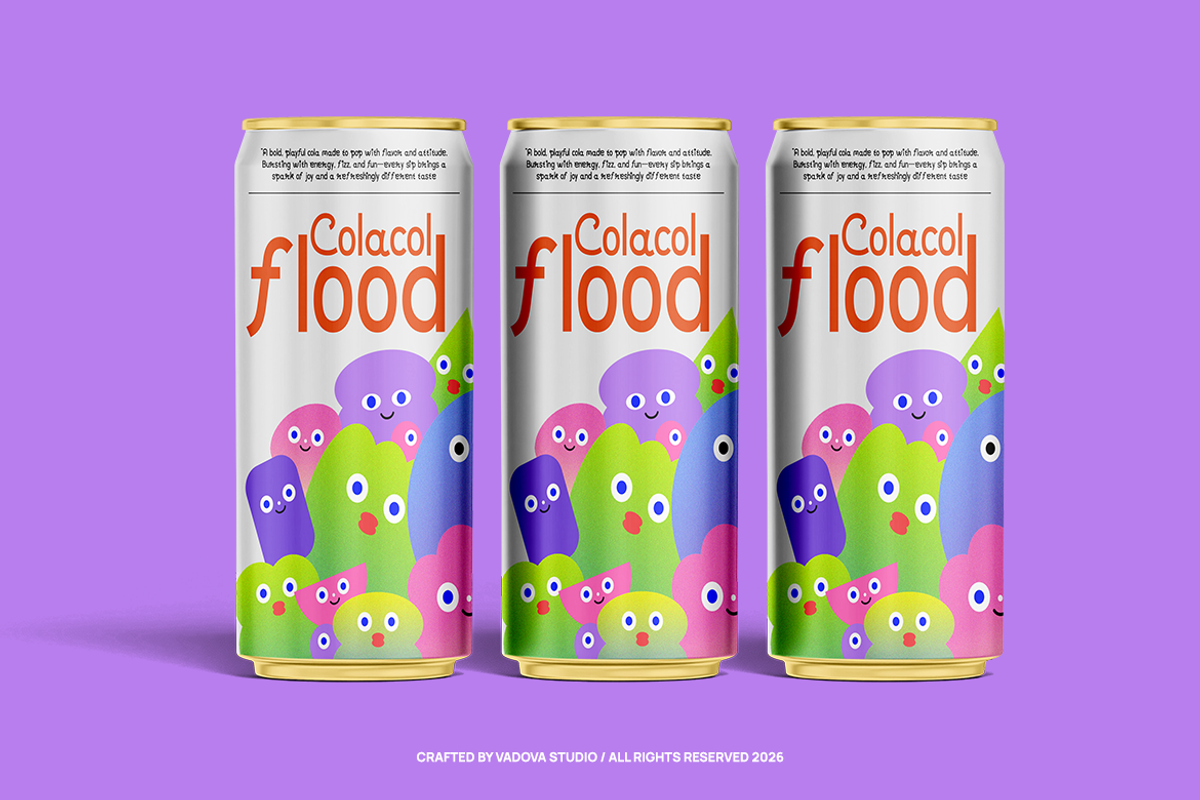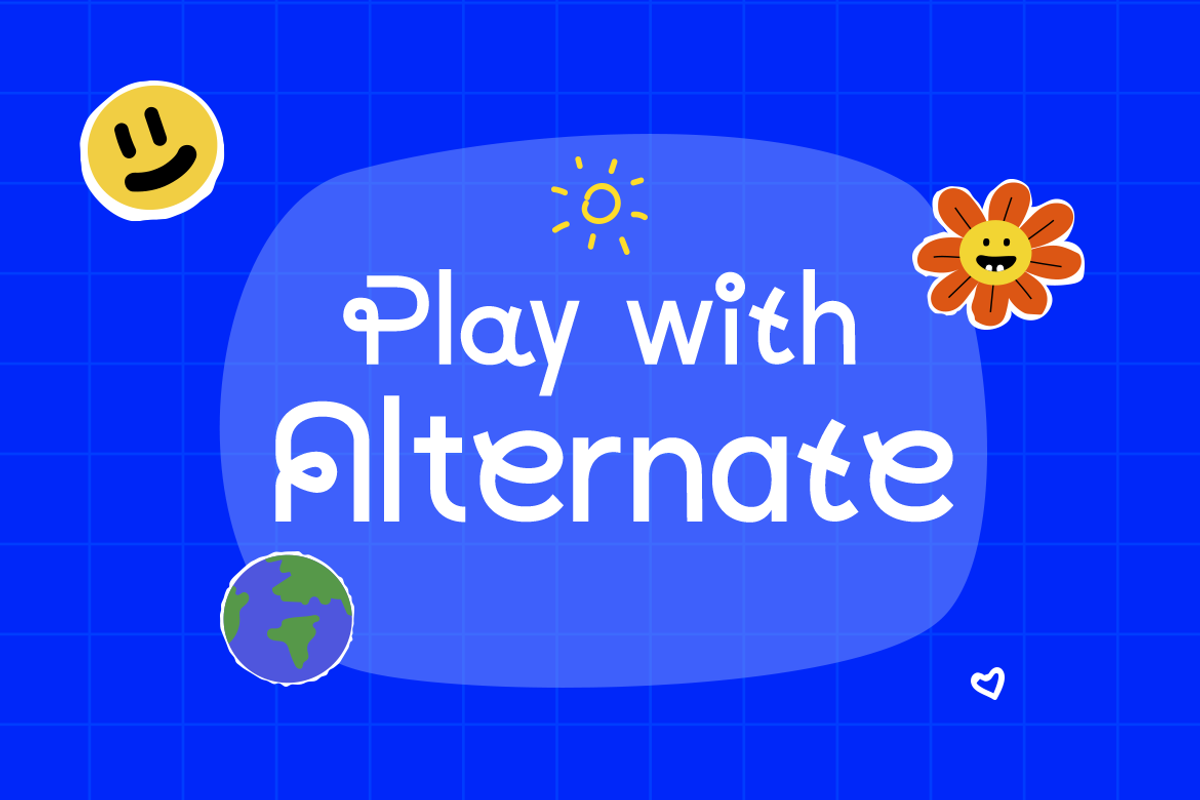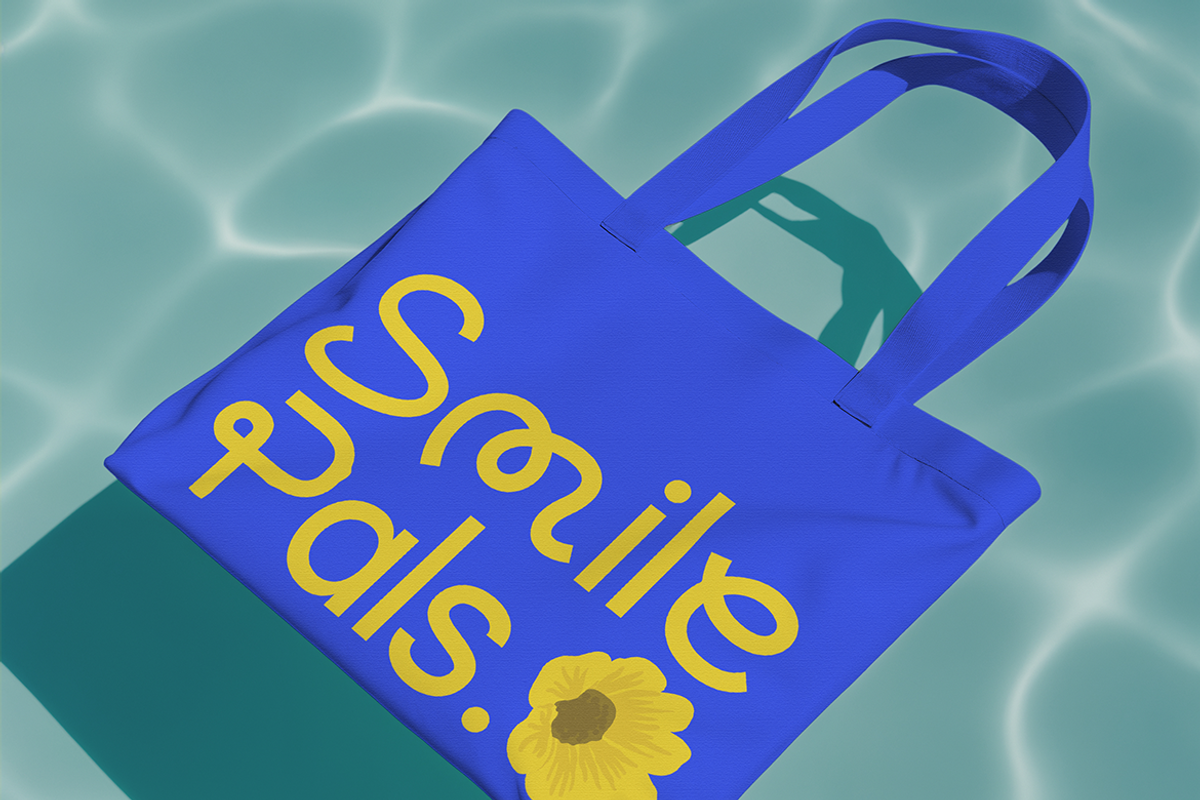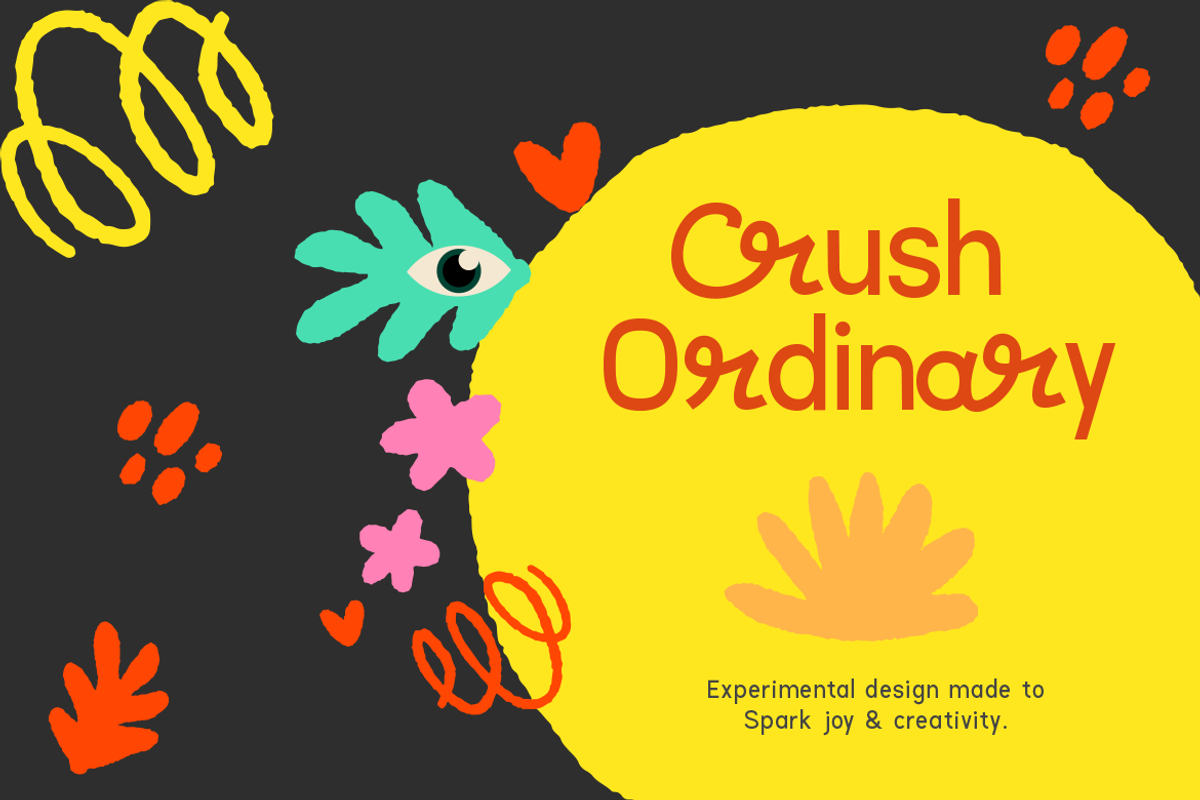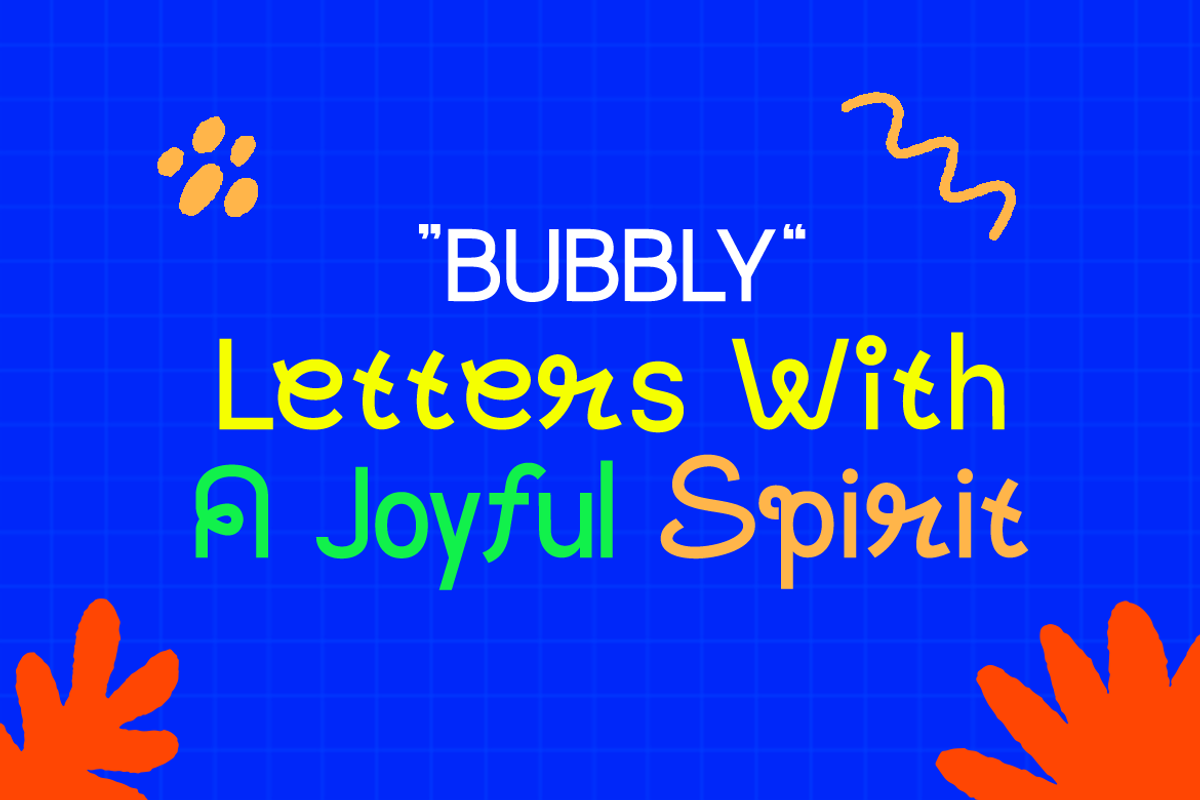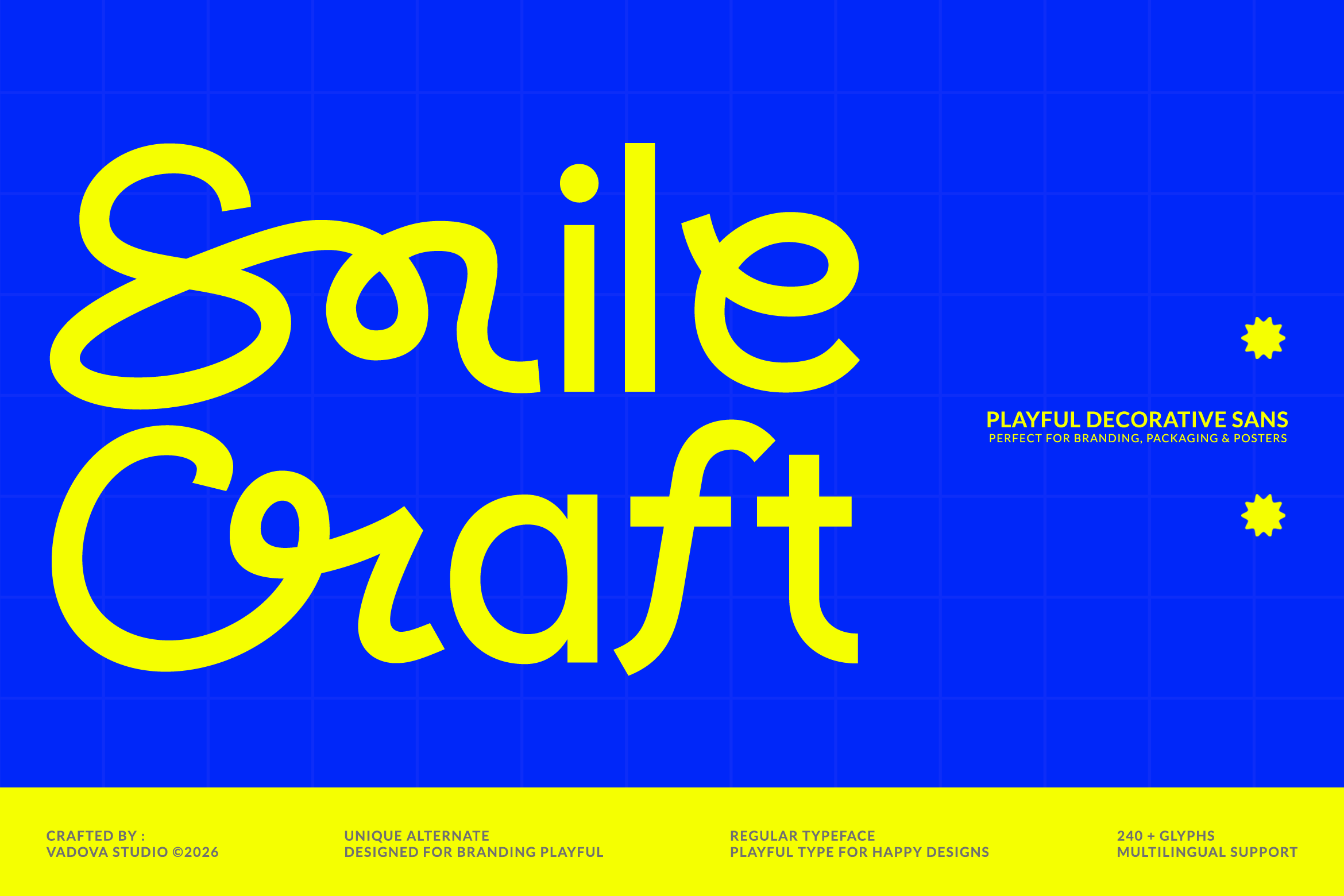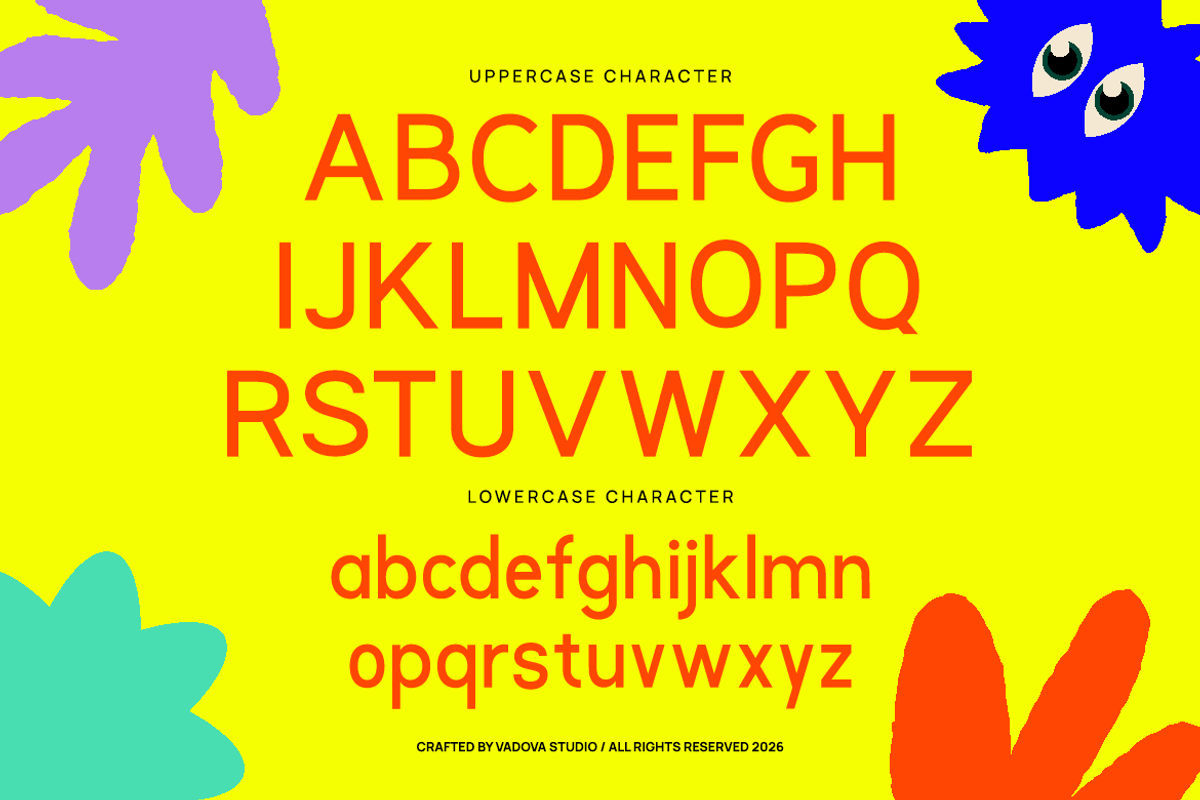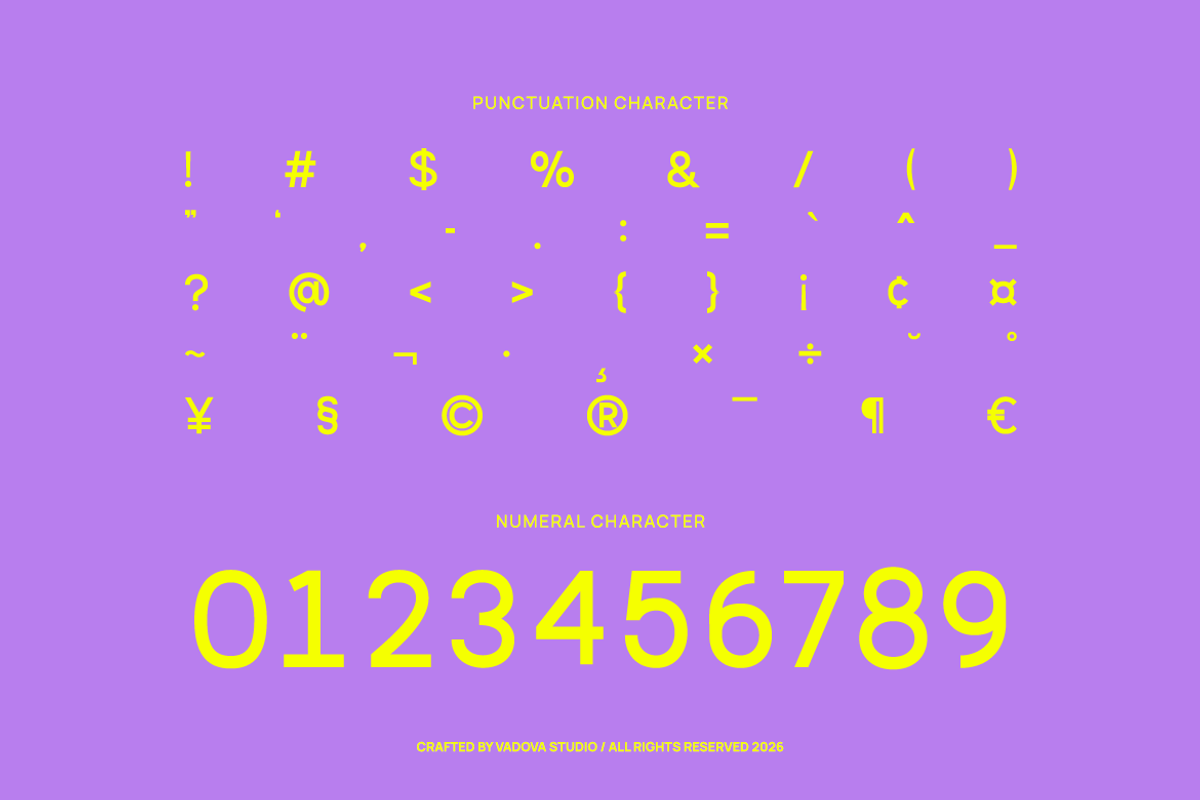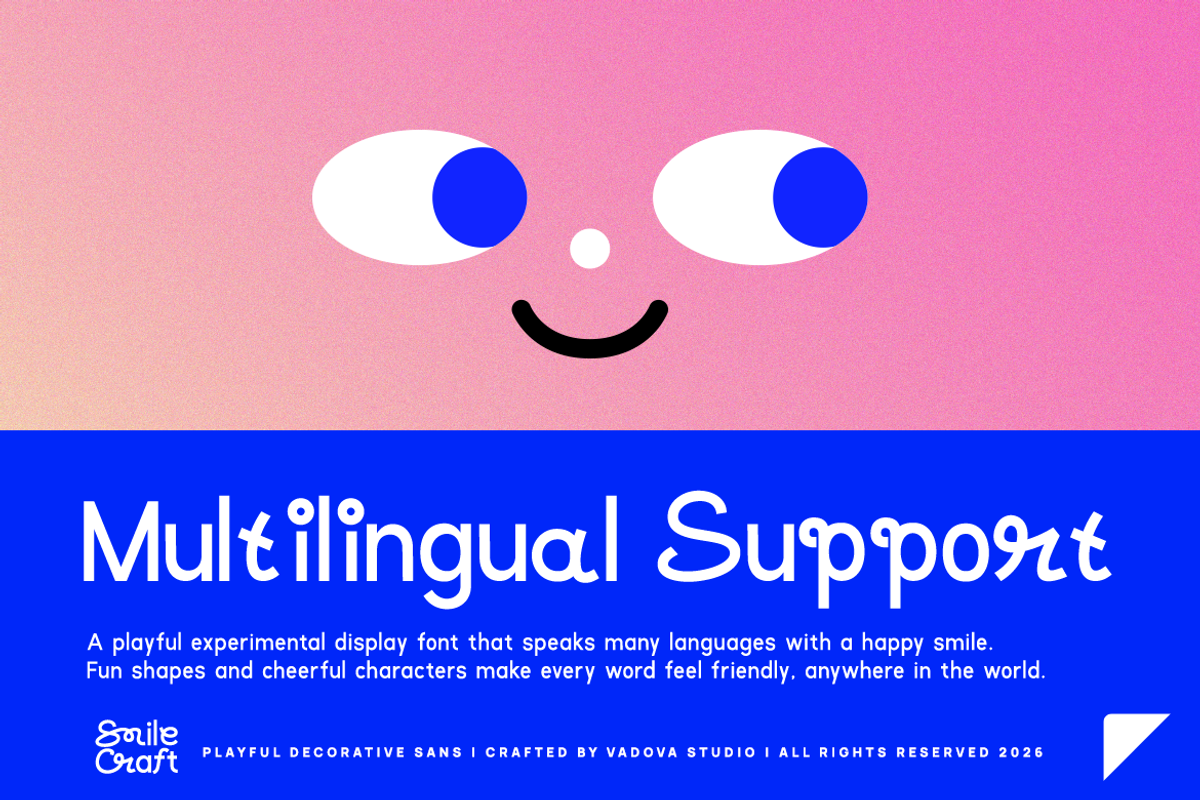
Smile Craft Decorative Sans Font
Smile Craft is a playful decorative sans font crafted with rounded strokes, soft curves, and cheerful proportions that create a friendly and expressive personality. The letterforms feature smooth terminals, bouncy shapes, and a handcrafted rhythm that brings warmth and approachability to every word. Designed for fun and eye-catching display use, it delivers strong readability while maintaining a cute, lively character perfect for creative layouts.
This font brings a joyful, warm, and approachable tone, making it highly effective for kids brands, playful identities, snack and food packaging, toy products, posters, stickers, educational materials, social media graphics, and creative marketing designs. Its rounded forms and lively personality help messages feel fun, friendly, and instantly engaging across both print and digital projects.
- Playful handwritten sans design with soft, rounded construction
- Bouncy letterforms and organic curves that create a friendly, cheerful personality
- Smooth terminals and thick monoline strokes for clear legibility at display sizes
- Casual, childlike proportions with expressive shapes for fun visual impact
- Comfortable spacing and balanced rhythm that keeps text readable
- Kids brands, toy packaging, and children-focused identity systems
- Snack, bakery, dessert, and food packaging with a sweet playful vibe
- Posters, stickers, and merchandise with bright, cheerful visuals
- Social media graphics, digital content, and fun marketing materials
- Educational materials, activity books, and friendly UI designs
Make your design pop with Smile Craft and turn every word into a playful statement